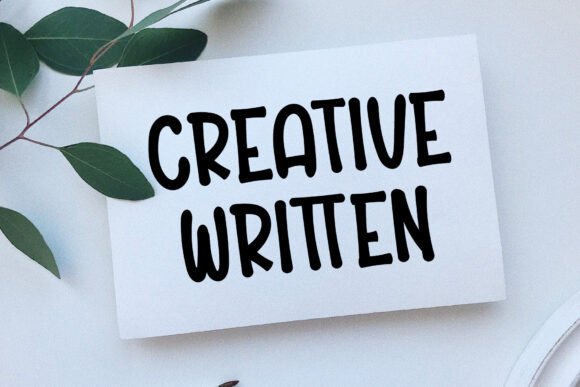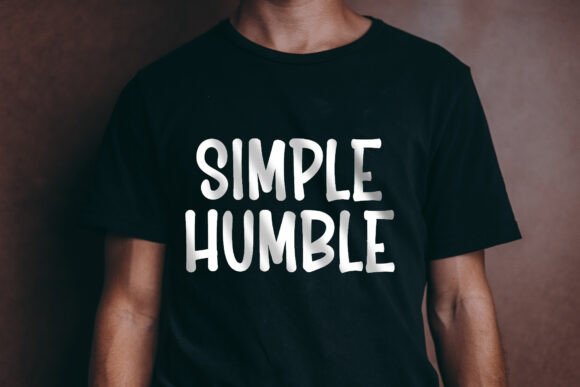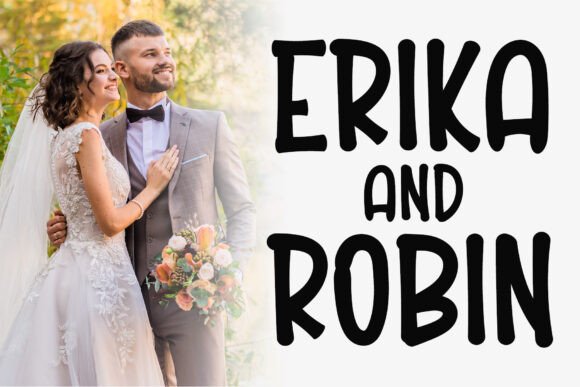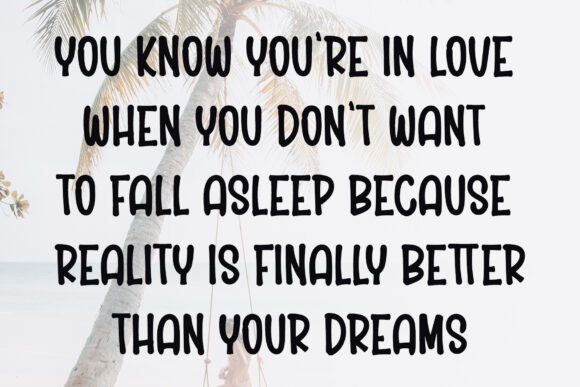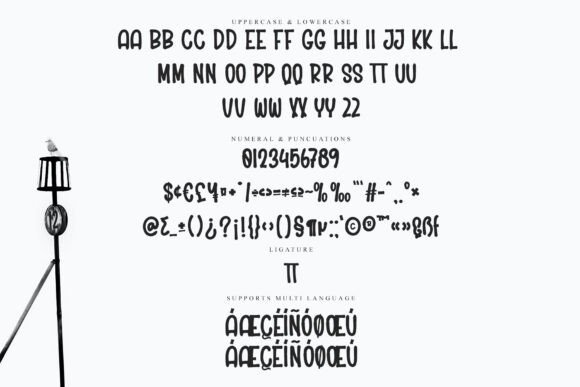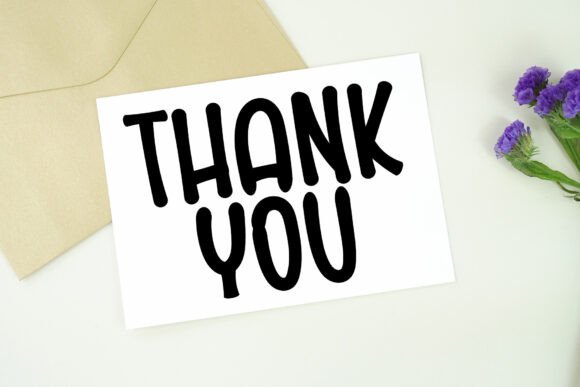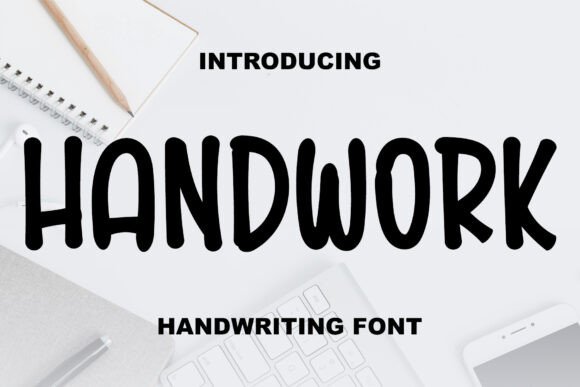
Introducing Handwork Font: The Perfect Choice for Cheerful Designs
Are you looking for a font that can add a touch of fun and quirkiness to your designs? Look no further than Handwork Font! This display font is perfect for use on cheerful topics and is especially suitable for children’s themed designs. When combined with bright colors, Handwork Font can bring your designs to life and make them truly unforgettable.
What Makes Handwork Font So Special?
Handwork Font is a unique and playful font that is designed to bring a smile to your face. Its fun and quirky style makes it perfect for use on a wide range of design projects, from children’s party invitations to educational materials, and even craft projects. The font’s playful nature makes it an excellent choice for designers who want to create designs that are both fun and engaging.
Key Features of Handwork Font
- PUA Encoded: Handwork Font is PUA encoded, which means you can access all of the amazing glyphs and ligatures with ease. This makes it simple to use the font and get the most out of its features.
- Fun and Quirky: The font’s fun and quirky style makes it perfect for use on cheerful topics and children’s themed designs.
- Display Font: Handwork Font is a display font, making it perfect for use on headlines, titles, and other design elements that need to make a big impact.
- Bright and Bold: The font looks amazing when combined with bright colors, making it perfect for designs that need to stand out.
Handwork Font is perfect for designers and crafters who want to add a touch of fun and quirkiness to their designs. Whether you’re creating designs for a children’s party, a craft project, or a educational material, Handwork Font is an excellent choice. The font’s playful nature makes it easy to use and pair with other design elements, and its PUA encoding makes it simple to access all of its features.
Use Cases for Handwork Font
Handwork Font is versatile and can be used on a wide range of design projects, including:
- Children’s party invitations
- Educational materials
- Craft projects
- Signs and posters
- Blog posts and articles
Tips for Using Handwork Font
Here are a few tips for using Handwork Font:
- Pair with bright colors: Handwork Font looks amazing when combined with bright colors, so don’t be afraid to get creative with your color palette.
- Use on headlines and titles: The font’s display style makes it perfect for use on headlines and titles, where it can make a big impact.
- Experiment with glyphs and ligatures: Handwork Font’s PUA encoding makes it easy to access all of its glyphs and ligatures, so don’t be afraid to experiment and see what you can create.
Handwork Font is a fun and quirky display font that is perfect for use on cheerful topics and children’s themed designs. Its PUA encoding makes it easy to access all of its features, and its playful nature makes it an excellent choice for designers and crafters. Whether you’re creating designs for a children’s party, a craft project, or an educational material, Handwork Font is an excellent choice. So why not give it a try and see what you can create?